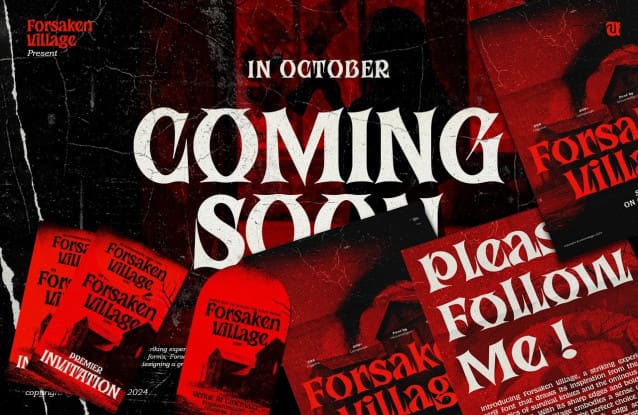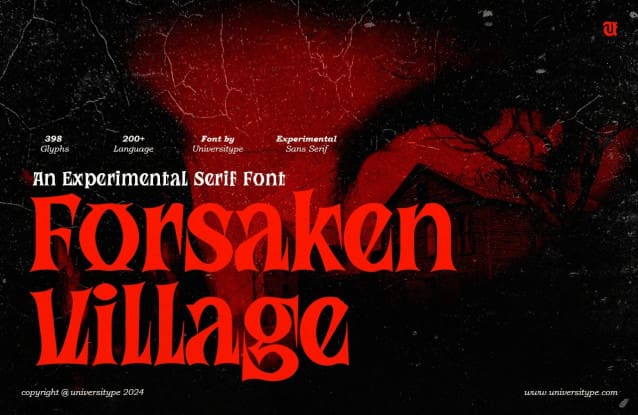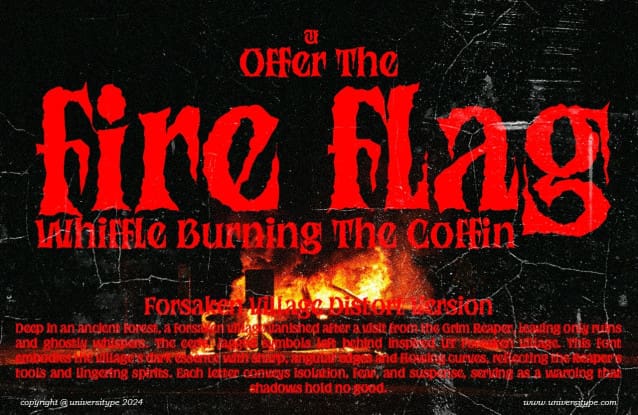
UT Forsaken Village Font
UT Forsaken Village Font, a terrifyingly captivating font inspired by the ominous presence of the Grim Reaper himself. This font evokes a spine-chilling atmosphere, perfect for projects where you want to elicit fear, suspense, and intrigue. With sharp edges, distorted strokes, and haunting silhouettes, UT Forsaken Village is not just a typeface but a journey into the unknown, a village left abandoned, where shadows whisper and darkness reigns.